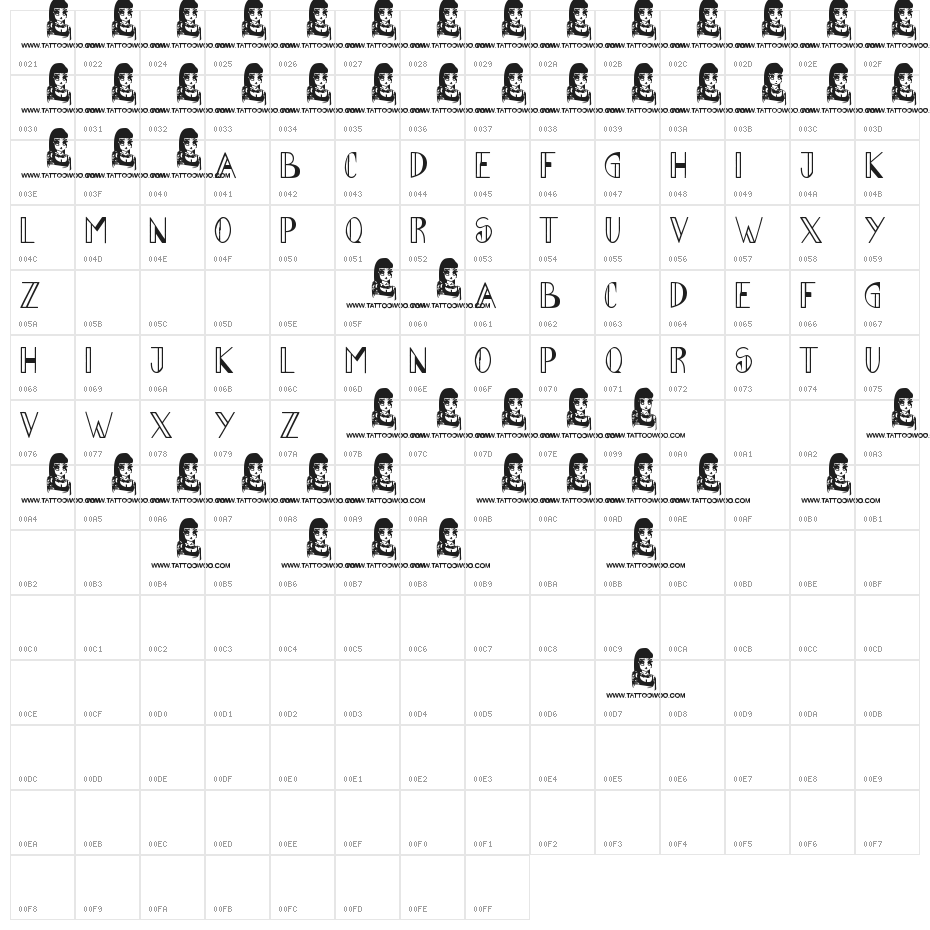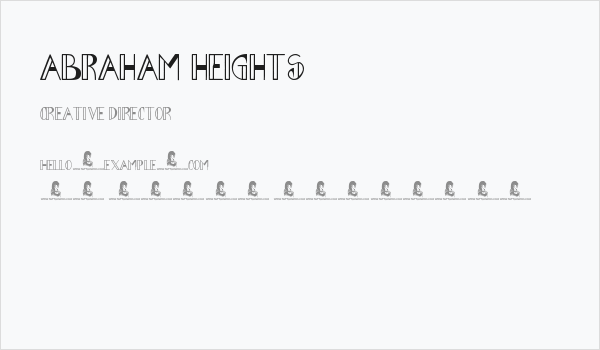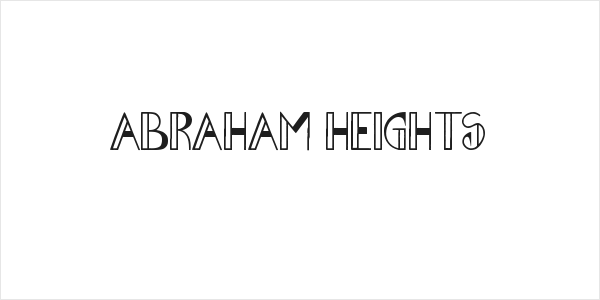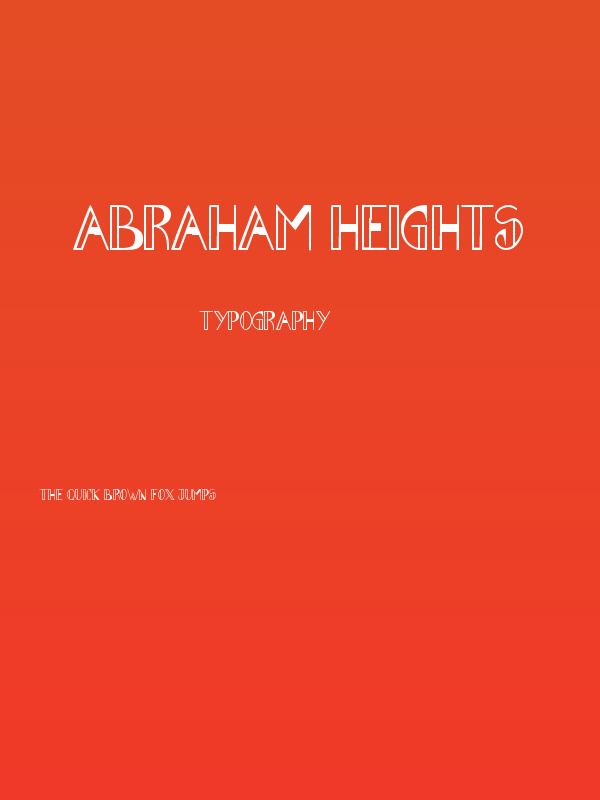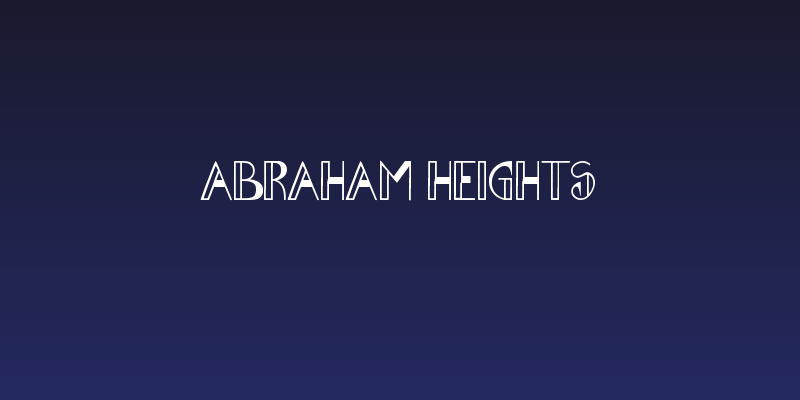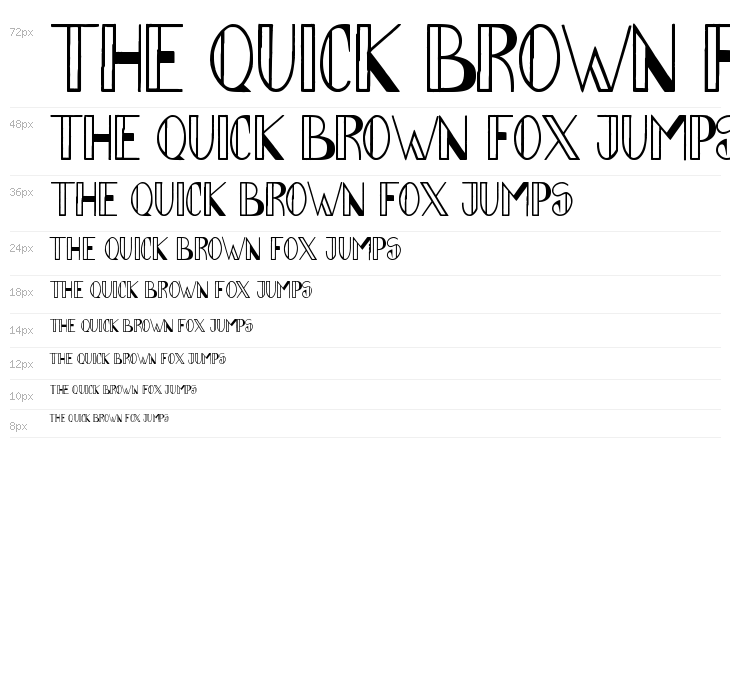
Abraham Heights Font
Abraham Heights Description
This font features a unique and artistic style, characterized by its bold and geometric letterforms. The uppercase letters are designed with a combination of thick and thin strokes, creating a dynamic and eye-catching appearance. The font has a modern and decorative flair, making it suitable for creative and expressive design projects. The characters are well-spaced, providing a balanced and harmonious look. The overall style is both contemporary and playful, with a hint of retro influence. This font is ideal for use in headlines, posters, and branding materials where a strong visual impact is desired.
| Use Case | Headlines, Posters, Branding |
| Proposed Projects | Ideal for headlines, posters, branding, and creative design projects. |